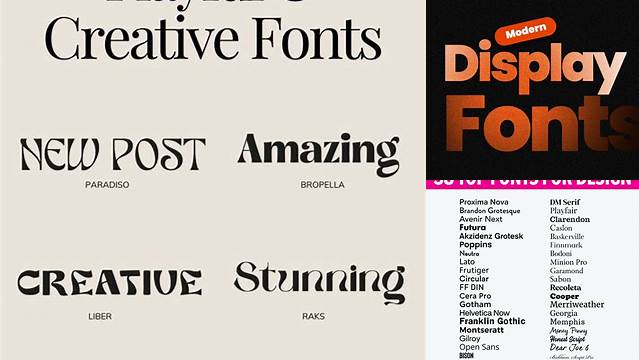
Top Fonts For Editing: Enhance Your Visuals
Choosing the right font can dramatically impact the look and feel of your edits. Whether you're working on videos, graphics, or presentations, the font you select plays a crucial role in conveying your message effectively. So, what are the most used fonts for edits? Let's dive into a comprehensive guide that covers a wide range of font styles and their applications to help you make the best choice for your projects.
1. Best Fonts for Video Editing
When it comes to video editing, clarity and readability are key. You want fonts that are easy to read on screen, even for a short duration. The best fonts for video editing often include sans-serif options like Arial, Helvetica, and Open Sans. These fonts provide a clean and modern look, ensuring your text is legible across various screen sizes and resolutions. In addition to readability, consider the tone and style of your video. For a professional and formal video, a classic font like Times New Roman might work well, while a more casual video might benefit from a friendly and approachable font like Montserrat. Don't forget to test your font choices on different devices to ensure they display correctly and maintain their readability.
2. Popular Fonts for Photo Editing
For photo editing, the font should complement the image without overshadowing it. Popular fonts for photo editing include both serif and sans-serif options, but it's essential to choose a font that aligns with the photograph's mood and style. For example, a script font might work beautifully on a wedding photo, while a bold sans-serif font could be ideal for a modern, urban-themed image. Think about the message you want to convey and select a font that enhances that message. Keep in mind the context of the photo—is it for social media, a print ad, or a personal project? This will influence your font choice. Remember, less is often more, so avoid overcrowding your image with too much text or overly decorative fonts.
4. Professional Fonts for Editing
If you're aiming for a polished and sophisticated look, professional fonts for editing are worth considering. These fonts often come with more extensive character sets, including multiple weights and styles, which provide greater flexibility in your designs. Professional fonts like Futura, Garamond, and Proxima Nova are widely used in the design industry for their timeless appeal and versatility. Investing in a professional font can add a touch of elegance and credibility to your edits, making them stand out. These fonts are designed to look great in a variety of contexts, from print to digital, ensuring consistency across all your projects. They often include features like ligatures and alternate characters, which can add a unique touch to your typography.
5. Modern Fonts for Editing
For a sleek and contemporary feel, modern fonts for editing are the way to go. These fonts often feature clean lines, geometric shapes, and a minimalist aesthetic. Popular modern fonts include Montserrat, Open Sans, and Lato. These sans-serif fonts are incredibly versatile and work well in a variety of editing projects, from video titles to website graphics. Modern fonts are excellent for conveying a sense of innovation and forward-thinking. They are particularly effective in tech-related projects, where a clean and uncluttered design is essential. When choosing a modern font, consider the overall tone of your project—a bold, geometric font can make a strong statement, while a lighter, more refined font can create a sense of sophistication.
6. Best Fonts for Thumbnail Editing
Thumbnails are your first impression on platforms like YouTube, so choosing the right font is crucial. The best fonts for thumbnail editing are those that are bold, eye-catching, and easy to read at a small size. Impact, Bebas Neue, and Montserrat are popular choices for thumbnails. These fonts stand out and grab viewers' attention, encouraging them to click on your video. Remember, your thumbnail text should be concise and to the point. Use a font that is legible even when scaled down, and consider adding a contrasting background color to make the text pop. Don't be afraid to experiment with different font styles and sizes to find what works best for your content.
7. Editing Fonts for Titles
Titles are a key element in any visual project, and the font you choose can make a significant impact. Editing fonts for titles should be attention-grabbing and reflective of the project's overall tone. Bold fonts like Impact and Bebas Neue are excellent for creating strong, impactful titles. Script fonts, like Brush Script or Pacifico, can add a touch of elegance and personality. Consider the hierarchy of your title—the main title should be in a larger, bolder font, while subtitles can use a smaller, complementary font. Experiment with different font combinations to find a balance that is both visually appealing and easy to read. Remember, your title is often the first thing viewers will see, so make it count!
8. Cool Fonts for Editing
If you want to add a touch of personality and flair to your edits, cool fonts for editing can be a great choice. These fonts often have unique characteristics that set them apart from more traditional typefaces. Think about fonts with handwritten styles, vintage-inspired designs, or unusual letterforms. Websites like Creative Market and Envato Elements offer a wide variety of cool fonts that can add a unique touch to your projects. When using cool fonts, it's important to use them sparingly and in contexts where they enhance your message rather than distract from it. A cool font can be perfect for adding a creative touch to a logo, poster, or social media graphic, but it might not be the best choice for body text.
9. Cinematic Fonts for Editing
For video projects that aim for a cinematic feel, cinematic fonts for editing are essential. These fonts evoke the atmosphere of classic movies and add a sense of drama and sophistication. Serif fonts like Times New Roman and Garamond are often used in movie titles and credits for their timeless elegance. Sans-serif fonts like Helvetica and Futura can also create a cinematic feel when used in a minimalist and impactful way. When choosing a cinematic font, consider the genre and tone of your video. A suspenseful thriller might benefit from a bold, dramatic font, while a romantic comedy might call for a more elegant and flowing typeface. Remember, the font should complement the visuals and enhance the overall storytelling experience.
10. Fonts for Editing Memes
Memes are all about quick, impactful communication, so the font you choose is crucial. Fonts for editing memes need to be bold, legible, and instantly recognizable. Impact is a classic choice for meme text due to its thick, blocky letters that stand out against any background. Other popular meme fonts include Arial Black and Comic Sans MS (yes, even Comic Sans can work in the right context!). The key is to choose a font that is easy to read even when it's small or overlaid on an image. Consider adding a white outline or shadow to your text to further enhance its visibility. Remember, memes are meant to be shared and enjoyed quickly, so make sure your text is clear and concise.
11. Fonts for Editing Instagram Posts
Instagram is a visual platform, so your fonts need to be on point to grab attention. Fonts for editing Instagram posts should be stylish, legible, and reflective of your brand's aesthetic. Sans-serif fonts like Montserrat and Open Sans are popular choices for their clean and modern look. Script fonts can add a touch of personality and elegance, while bold fonts can make a strong statement. Consider using a consistent font family across your posts to maintain a cohesive brand identity. Experiment with different font sizes and styles to create visual interest, and remember to keep your text concise and easy to read on small screens. Your font choice can play a significant role in how your content is perceived, so choose wisely!
12. Fonts for Editing YouTube Videos
YouTube videos require fonts that are legible and engaging. Fonts for editing YouTube videos need to work well in titles, thumbnails, and on-screen text. Bold sans-serif fonts like Bebas Neue and Impact are great for titles and thumbnails, while cleaner fonts like Open Sans and Montserrat are ideal for on-screen text. Consider using a font hierarchy to distinguish between different elements, such as titles, subtitles, and captions. Make sure your font choices are consistent with your channel's branding, and test your fonts on different devices to ensure they display correctly. Remember, readability is key, so avoid overly decorative or thin fonts that may be difficult to read on smaller screens.
13. Serif Fonts for Editing
Serif fonts have small decorative strokes at the ends of the letters, giving them a classic and elegant look. Serif fonts for editing are often used in print projects, but they can also work well in digital contexts. Times New Roman, Garamond, and Georgia are popular serif fonts that offer a timeless appeal. Serif fonts are excellent for creating a sense of tradition and sophistication. They are often used in formal settings, such as academic papers, books, and corporate documents. When using serif fonts in editing, consider the overall tone of your project. They can add a touch of class to your visuals, but they may not be the best choice for a modern or minimalist design.
14. Sans-Serif Fonts for Editing
Sans-serif fonts lack the decorative strokes of serif fonts, giving them a clean and modern appearance. Sans-serif fonts for editing are incredibly versatile and widely used in digital design. Arial, Helvetica, Open Sans, and Montserrat are popular sans-serif fonts that work well in a variety of contexts. Sans-serif fonts are known for their readability, making them an excellent choice for on-screen text and body copy. They are often used in websites, mobile apps, and video editing projects. When choosing a sans-serif font, consider the overall aesthetic you want to achieve. A bold sans-serif font can make a strong statement, while a lighter sans-serif font can create a sense of simplicity and elegance.
15. Script Fonts for Editing
Script fonts mimic handwriting, adding a personal and elegant touch to your edits. Script fonts for editing can be used for titles, logos, and accent text. Brush Script, Pacifico, and Lobster are popular script fonts that offer a range of styles, from casual to formal. Script fonts are excellent for adding personality and flair to your visuals. They are often used in wedding invitations, greeting cards, and branding materials. When using script fonts, it's important to use them sparingly, as they can be difficult to read in large blocks of text. Consider using a script font for headings or callouts, and pair it with a simpler font for body text.
16. Bold Fonts for Editing
When you need your text to stand out, bold fonts for editing are the way to go. Bold fonts have thicker strokes, making them highly visible and impactful. Impact, Bebas Neue, and Arial Black are popular bold fonts that are often used in headlines, titles, and calls to action. Bold fonts are excellent for grabbing attention and conveying a sense of urgency or importance. They are often used in marketing materials, advertisements, and thumbnails. When using bold fonts, consider the overall visual hierarchy of your design. Use bold fonts strategically to highlight key information and create a strong visual impact.
17. Light Fonts for Editing
Light fonts have thinner strokes, giving them a delicate and elegant appearance. Light fonts for editing can be used to create a sense of sophistication and minimalism. Open Sans Light, Lato Light, and Helvetica Light are popular light fonts that work well in a variety of contexts. Light fonts are excellent for adding a subtle touch of elegance to your visuals. They are often used in logos, branding materials, and website design. When using light fonts, make sure they are legible against the background color. A light font on a light background can be difficult to read, so consider using a darker background or adding a shadow to the text.
18. Decorative Fonts for Editing
Decorative fonts are designed to be eye-catching and unique, adding a creative touch to your edits. Decorative fonts for editing come in a wide range of styles, from vintage-inspired to futuristic. They can be used for logos, titles, and special effects. Websites like Creative Market and DaFont offer a vast selection of decorative fonts to choose from. Decorative fonts are excellent for adding personality and flair to your visuals. They are often used in posters, flyers, and social media graphics. When using decorative fonts, it's important to use them sparingly, as they can be distracting if overused. Consider using a decorative font for a headline or logo, and pair it with a simpler font for body text.
19. Best Font Combinations for Editing
Choosing the right font combination can elevate your edits and create a cohesive visual experience. Best font combinations for editing often pair a serif font with a sans-serif font, or a bold font with a light font. For example, pairing Garamond (serif) with Helvetica (sans-serif) can create a classic and balanced look. Pairing Impact (bold) with Open Sans (light) can create a strong and modern feel. Experiment with different font combinations to find what works best for your project. Consider the overall tone and style of your visuals, and choose fonts that complement each other. A well-chosen font combination can enhance readability and visual appeal.
20. Fonts for Editing Lower Thirds
Lower thirds are the text overlays that appear at the bottom of the screen in videos, often used to display names, titles, or locations. Fonts for editing lower thirds need to be legible and non-distracting. Sans-serif fonts like Open Sans, Montserrat, and Arial are popular choices for lower thirds due to their clean and modern appearance. The font should be easy to read against any background, so consider using a contrasting color or adding a shadow. Keep the text concise and avoid using overly decorative fonts that may be difficult to read quickly. The goal is to provide information without distracting the viewer from the main content.
21. Typography Tips for Editing
Effective typography is crucial for creating visually appealing and readable edits. Typography tips for editing include choosing the right font size, line spacing, and kerning (the space between letters). Make sure your text is legible and doesn't clash with the background. Use a font hierarchy to distinguish between different elements, such as titles, subtitles, and body text. Experiment with different font combinations to find a balance that is both visually appealing and easy to read. Pay attention to the overall visual flow of your design, and make sure the typography enhances the message you want to convey. Remember, typography is an art form, so practice and experimentation are key to mastering it.
22. Font Pairing Tools for Editing
Struggling to find the perfect font combination? Font pairing tools for editing can help! Websites like FontPair and Canva's Font Combinator offer suggestions for fonts that work well together. These tools can save you time and effort by providing a curated list of font pairings that are visually harmonious. Simply enter a font you like, and the tool will suggest complementary fonts that you can use in your project. These tools are a great resource for both beginners and experienced designers who want to explore new font combinations. Experiment with different pairings to find a look that suits your style and project goals.